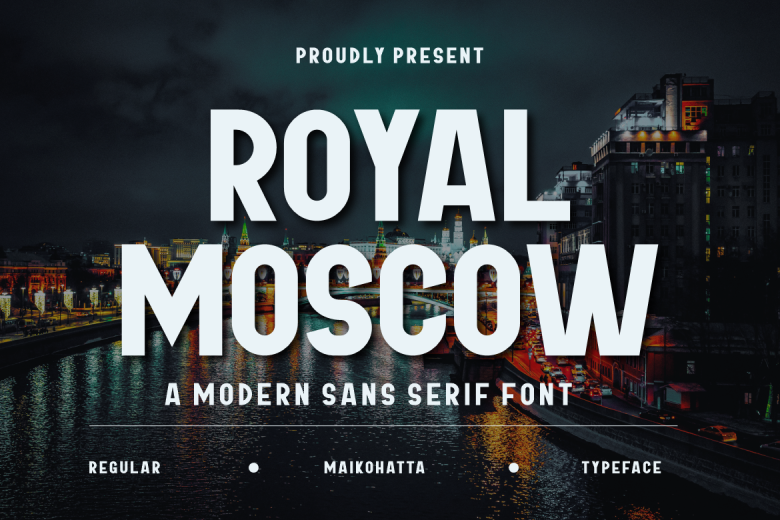
Royal Moscow Font
Royal Moscow – font is an authentic sans-serif font with bold strokes that is both robust and versatile, perfect for logos, template designs, Esports tournaments, etc. It provides outstanding results in many environments.
Royal Moscow Sans Serif Font